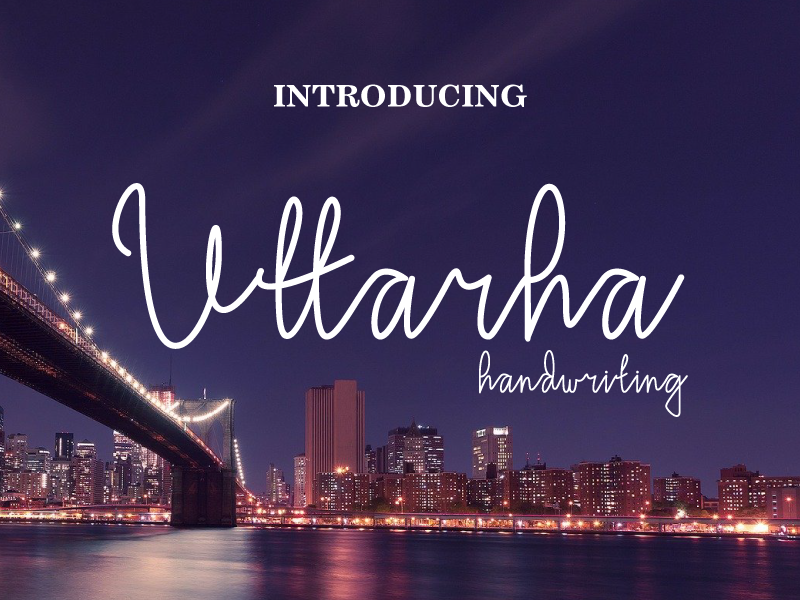
Preview and download Uttarha Font. Created by Gais Zaelani in Script Handwritten styles with Free for personal use license.
Introducing Uttarha Font Uttarha is a cute and casual handwritten font with an incredibly friendly feel. It features gorgeous swashes and ligatures that make this script incredibly versatile. Whether you�re looking for fonts for Instagram or calligraphy scripts for DIY projects, Uttarha will turn any creative idea into a true piece of art! Ready to use for projects, texts, letters, or whatever you want! NOTE: This demo font is for PERSONAL USE ONLY! But any donation are very appreciated. Paypal account donation: https://www.paypal.me/jprintstudio Link to purchase full version and commercial license : https://www.creativefabrica.com/product/uttarha-handwriting/ref/237608/ And follow my Dribble for Update : https://dribbble.com/GaisZ Thank you |